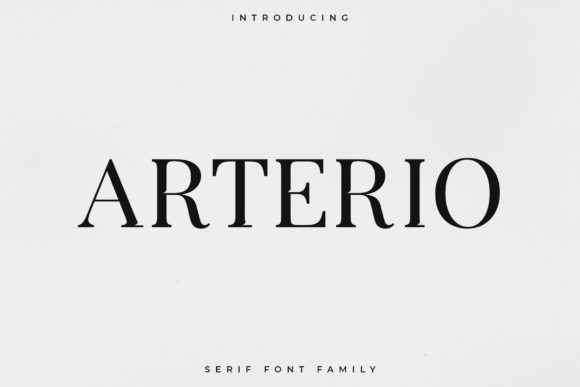
Step into the realm of timeless elegance with Arterio Font, a serif masterpiece that captivates hearts and transforms words into art. Crafted by the visionaries at RC Graphics, this font family is a symphony of sophistication, classicism, and modern flair.
Arterio is not just a font; it's an experience. Each character is a testament to the enduring beauty of typography, with graceful curves, sharp serifs, and a touch of whimsy that elevates your designs to new heights. It's a font that commands attention without overpowering, making it perfect for a wide range of projects.
Unleash your Creativity: Arterio's timeless design opens up endless creative possibilities. Create elegant logos that exude professionalism, design captivating posters that tell a story, or craft social media posts that stand out from the crowd.
Make a Lasting Impression: In a world of fleeting trends, Arterio's classic charm stands the test of time. Your designs will radiate sophistication and leave a lasting impression on your audience, whether it's for a business presentation, a personal invitation, or a special announcement.
Convey Authority and Trust: Arterio's bold and confident strokes convey a sense of authority and trustworthiness. It's the perfect choice for projects where credibility is paramount, such as legal documents, financial reports, or academic papers.
Immerse Yourself in History: Arterio's roots lie in the rich history of typography. Its inspiration comes from the timeless beauty of traditional serif fonts, reimagined for the modern age. Experience the elegance of a bygone era while embracing the conveniences of contemporary design.